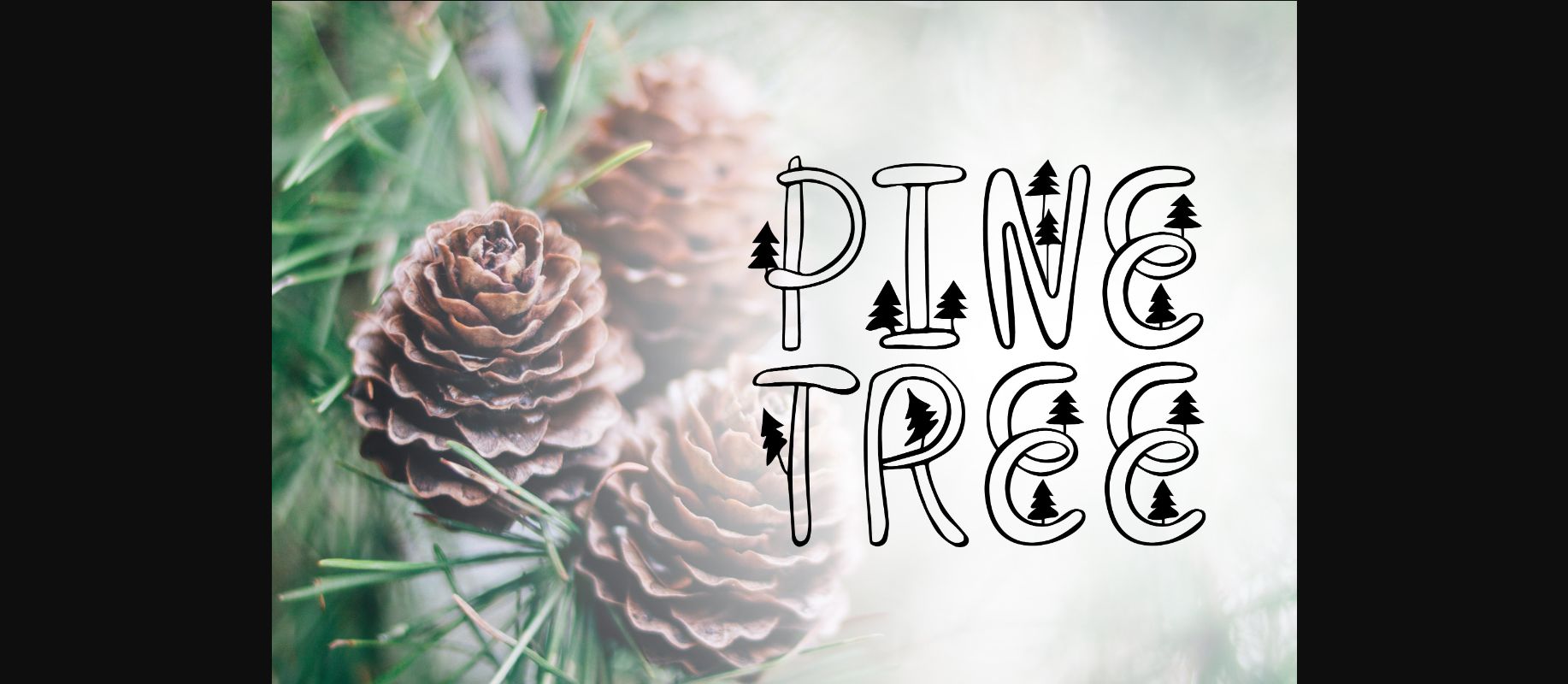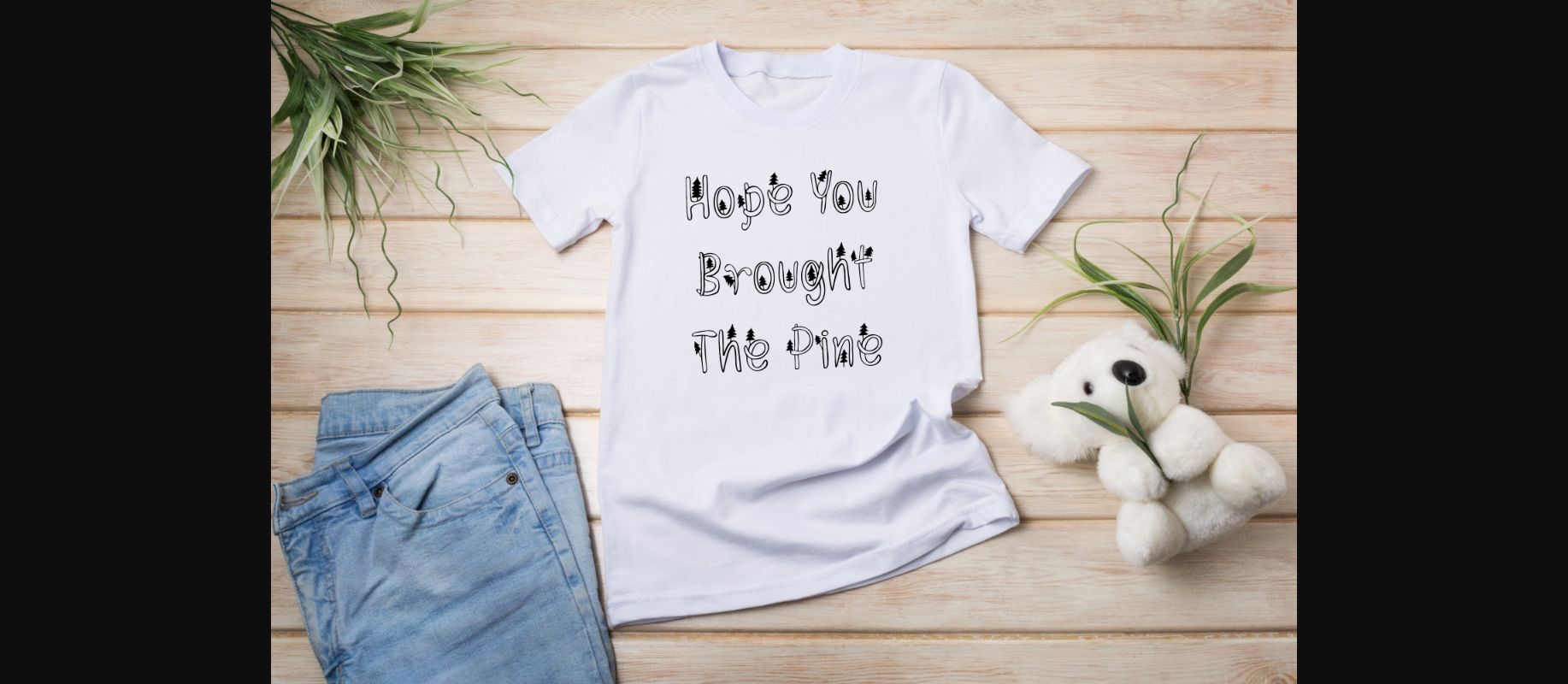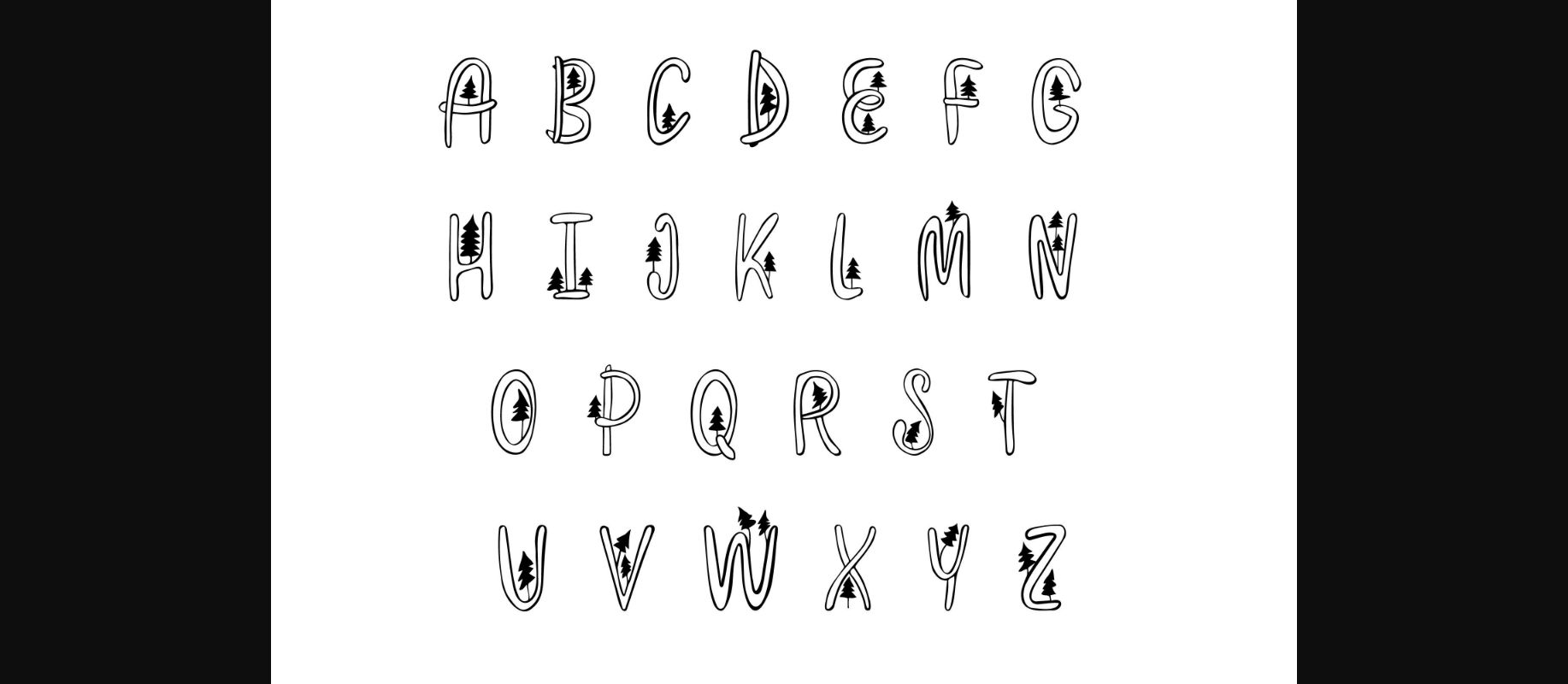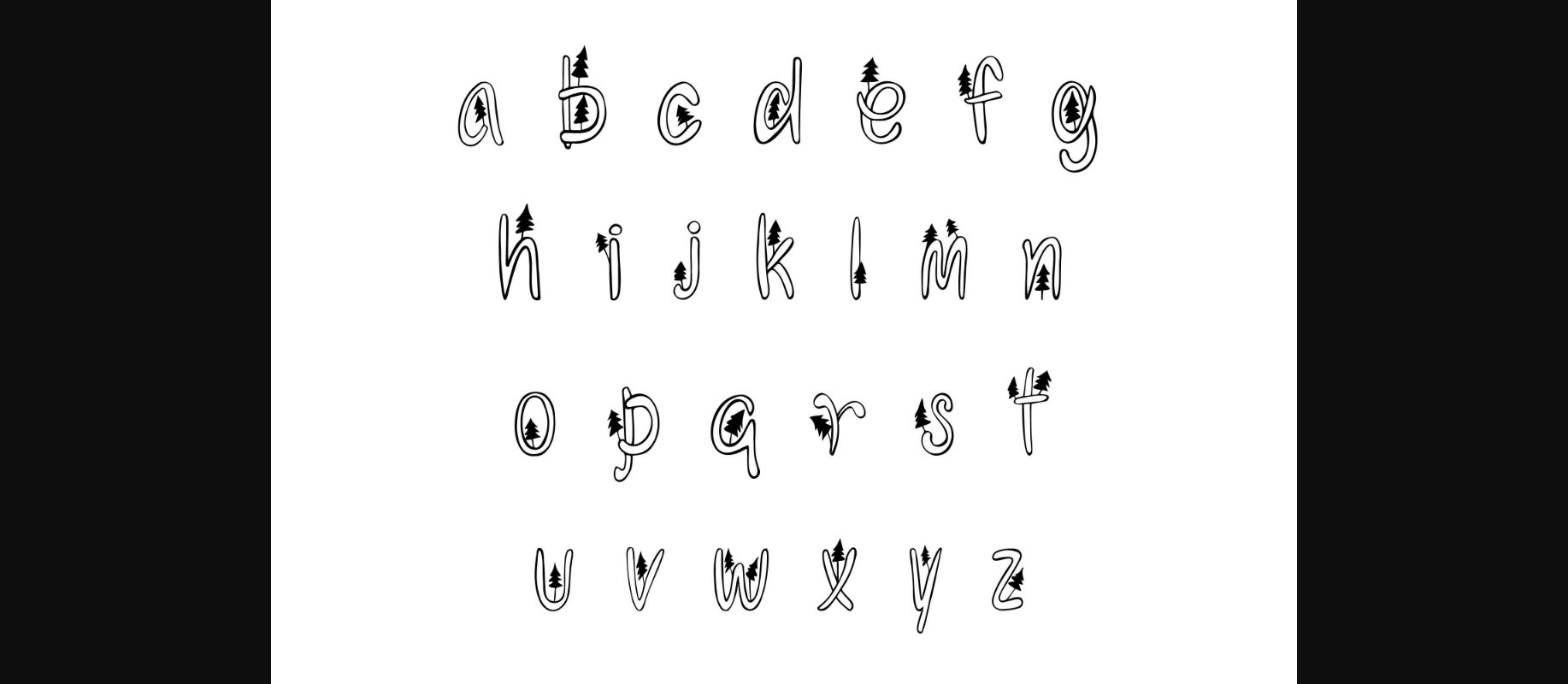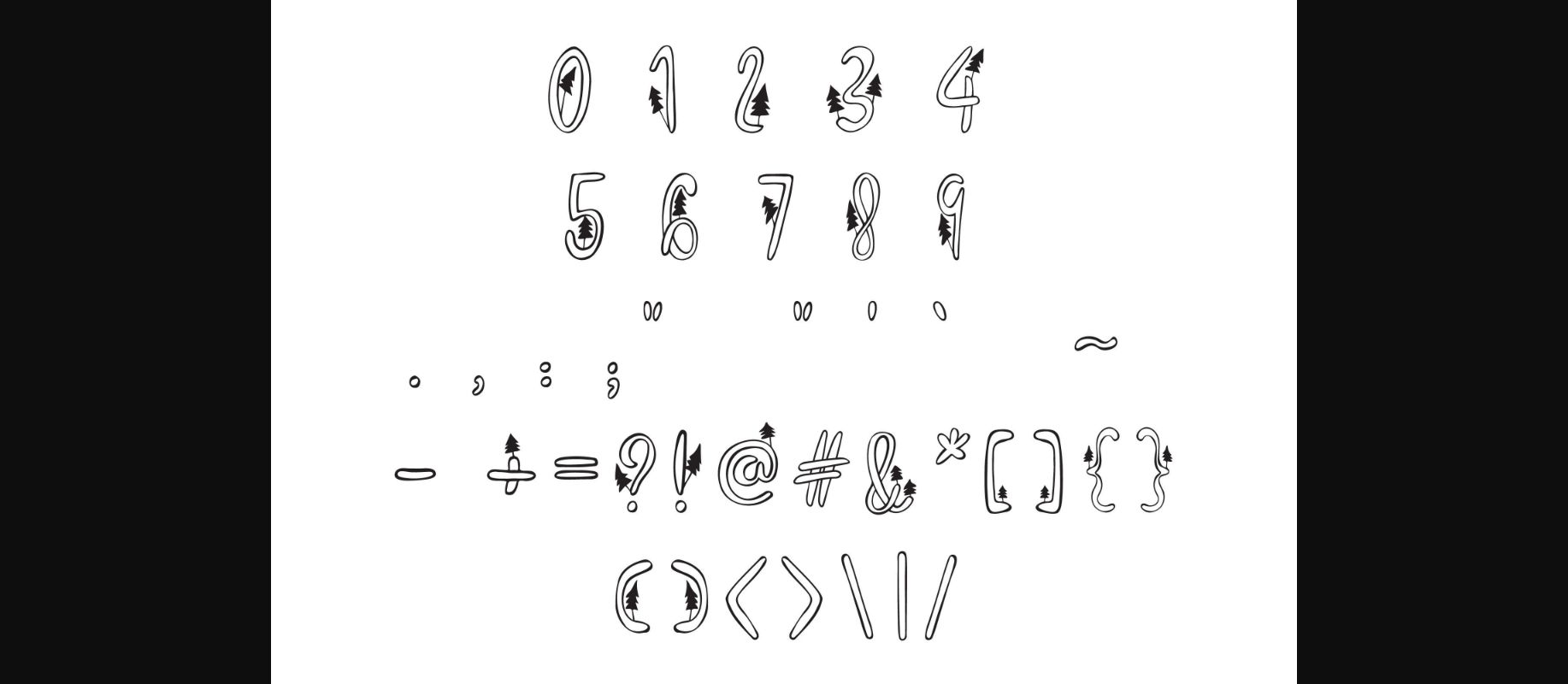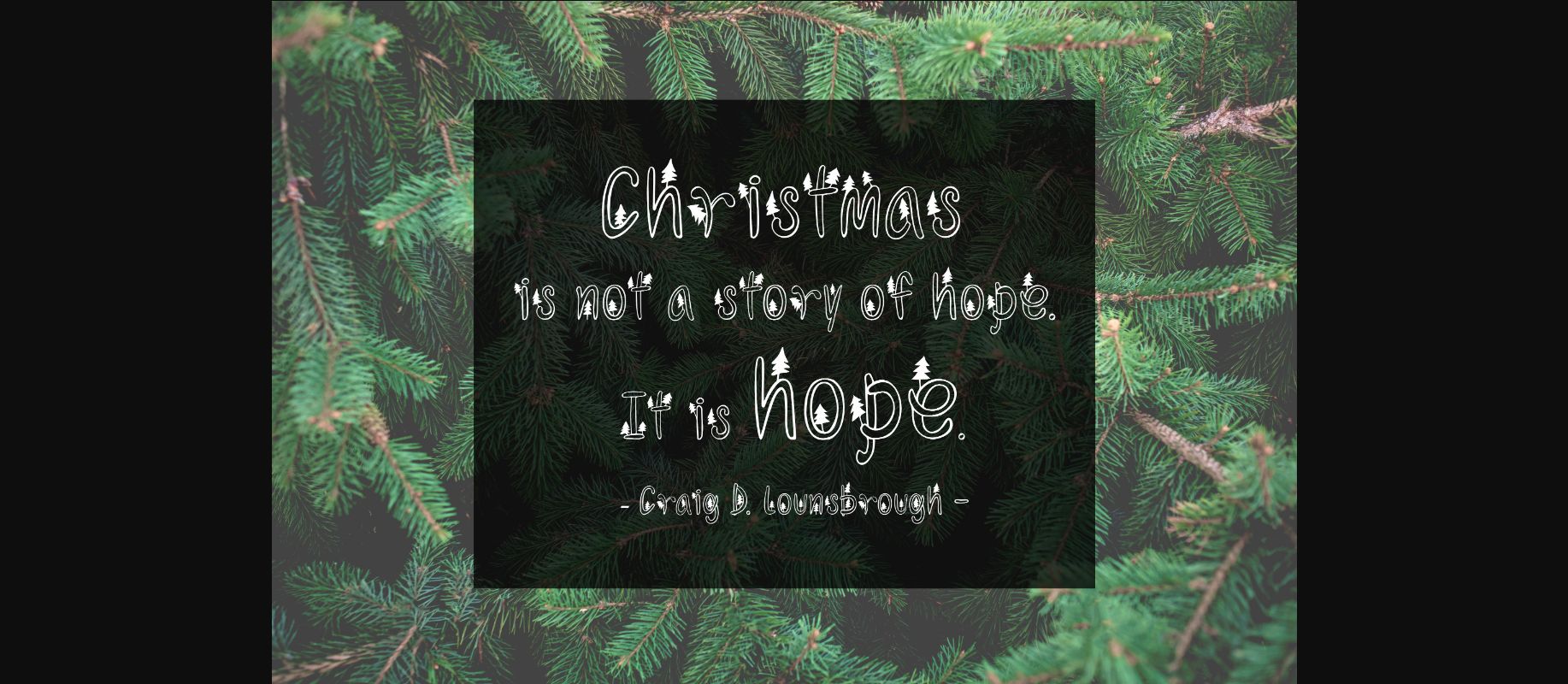
Pinetree Font
About Pinetree Font
Pinetree is a unique decorative font featuring characters decorated with pine trees. It is suitable for greeting cards, posters, social media, and print-on products, like mugs or shirts.